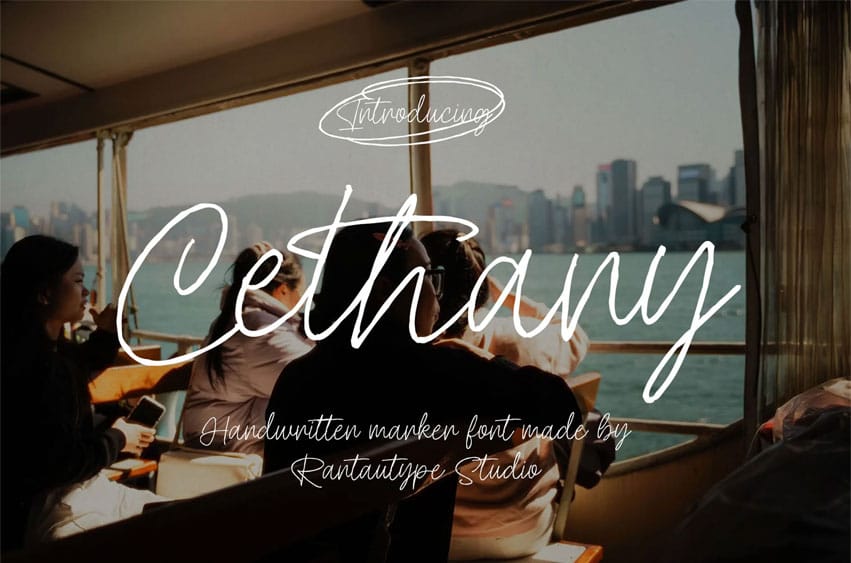
Cethany Font is brush handwritten font made with a natural texture effect. Cethany is a perfect choice for any creative endeavor, creating, modern, chic, lifestyle designs such as logotypes, titles, covers, branding, invitations, wedding designs, displays and magazines, social media posts, advertisements, printed quotes, product packaging, corporate brand, product designs, labels, photography, watermarks, special events and any other project with handwritten touch.